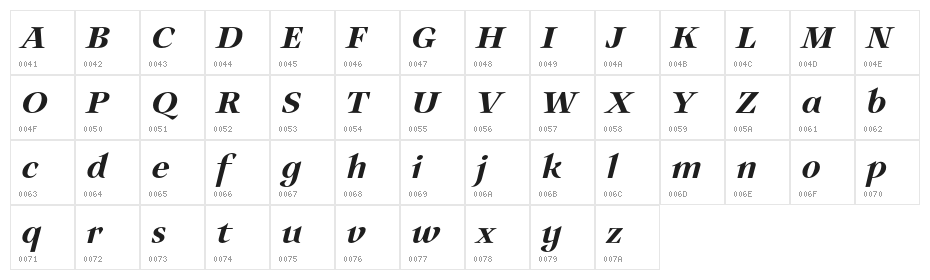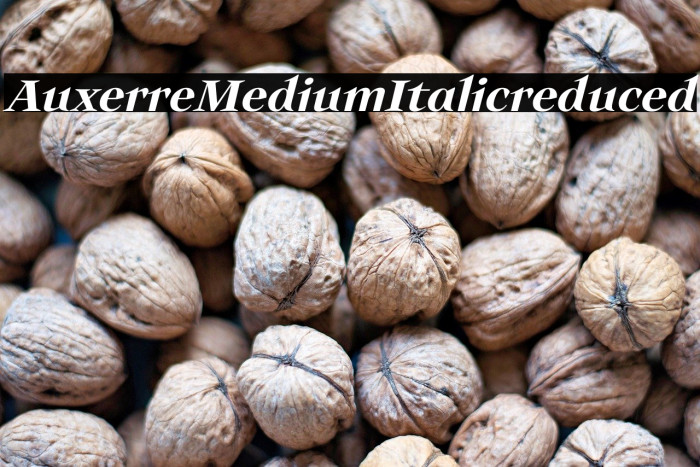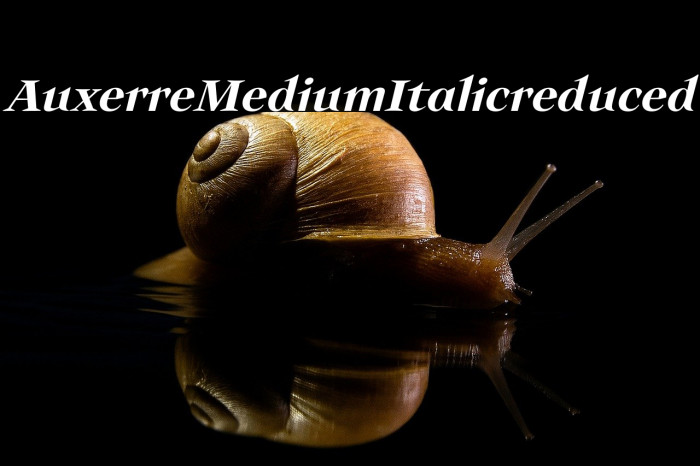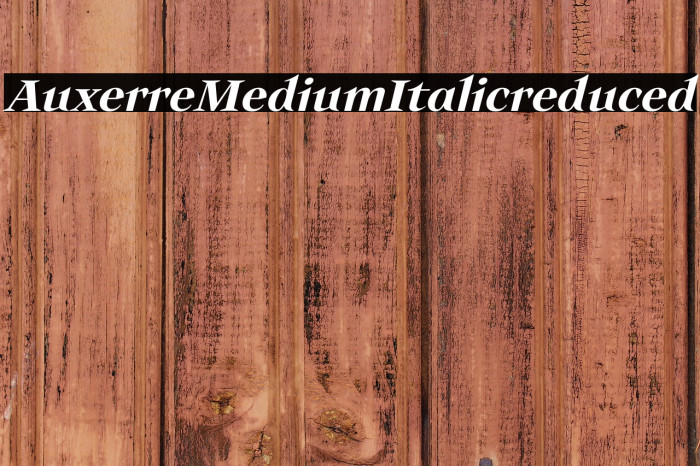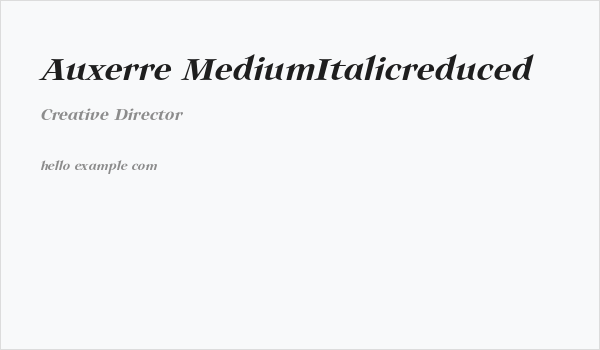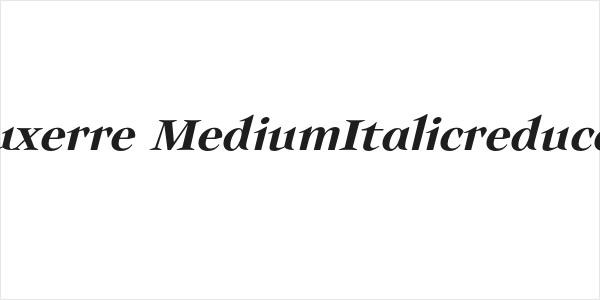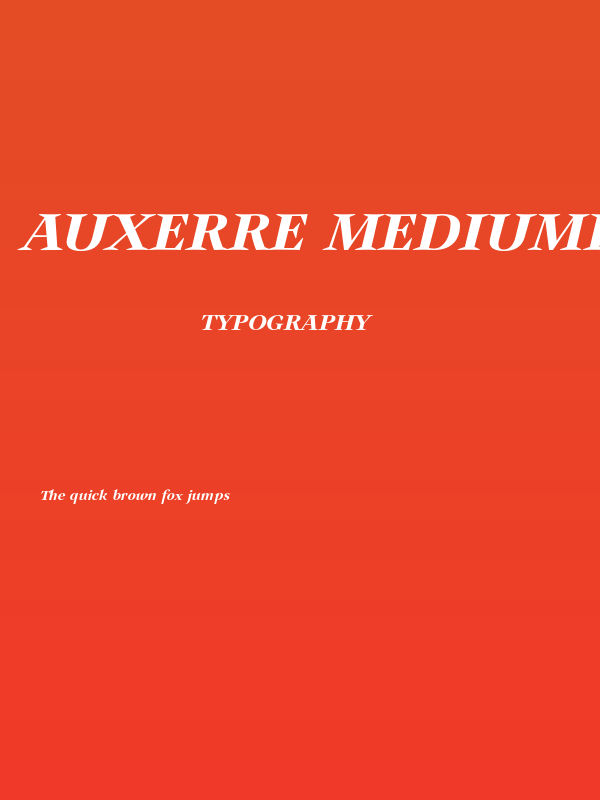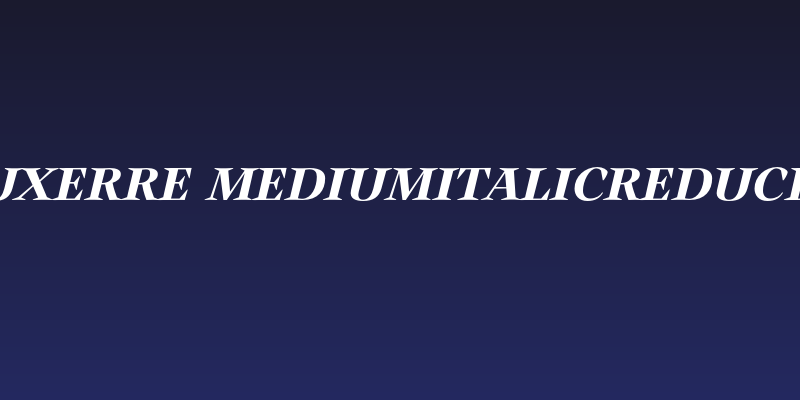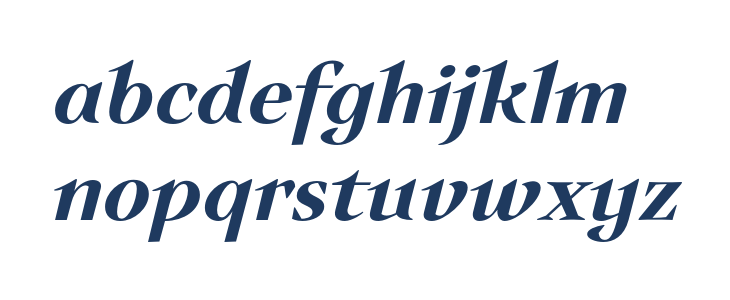
Auxerre-MediumItalicreduced Font
Auxerre-MediumItalicreduced Description
This font exhibits a classic serif style with a distinct italic slant, giving it a sophisticated and elegant appearance. The characters are well-defined with sharp serifs and a moderate contrast in stroke thickness, enhancing readability while maintaining a stylish flair. The uppercase letters are bold and commanding, while the lowercase letters offer a smooth, flowing quality. This combination of features makes it suitable for both formal and creative applications. The overall design is balanced, with a slight emphasis on verticality, contributing to its refined aesthetic.
| Proposed Projects | Ideal for use in editorial design, book covers, formal invitations, and branding materials that require a touch of elegance and sophistication. |